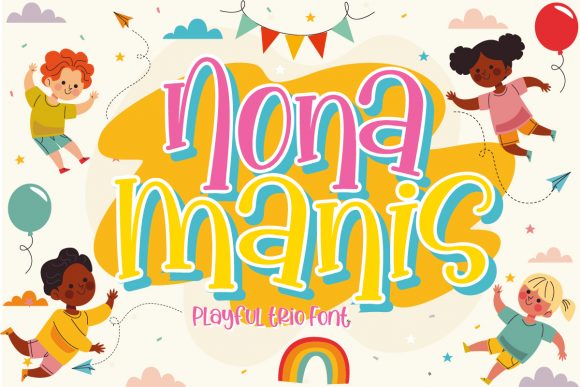
Welcome to the world of Nona Manis, a delightful display font family that will ignite your creativity and bring a touch of whimsy to your designs. Nona Manis, meaning "Sweet Delicacy" in Indonesian, is a charming and playful font perfect for capturing the hearts of your audience.
Journey into a realm of endless possibilities, where Nona Manis' quirky and vibrant characters dance across your screen, adding a touch of magic to every project. Let your imagination soar as you explore the endless design possibilities this font family has to offer.
With its cheerful and inviting personality, Nona Manis is an ideal choice for children-themed designs. Its playful nature perfectly complements bright colors, creating captivating visuals that will engage and delight young minds. Let your designs come alive with the vibrant energy of Nona Manis, transforming ordinary projects into extraordinary creations.
But Nona Manis' charm extends far beyond children's designs. Its versatility also shines in logos, branding, posters, invitations, and social media graphics. Nona Manis effortlessly adds a touch of whimsy and uniqueness to any project, leaving a lasting impression on your audience.
Step into a world of creativity and joy with Nona Manis, the font that will transform your designs into delightful works of art. Embrace its playful spirit and let your imagination run wild as you create captivating visuals that speak to the hearts of your audience.